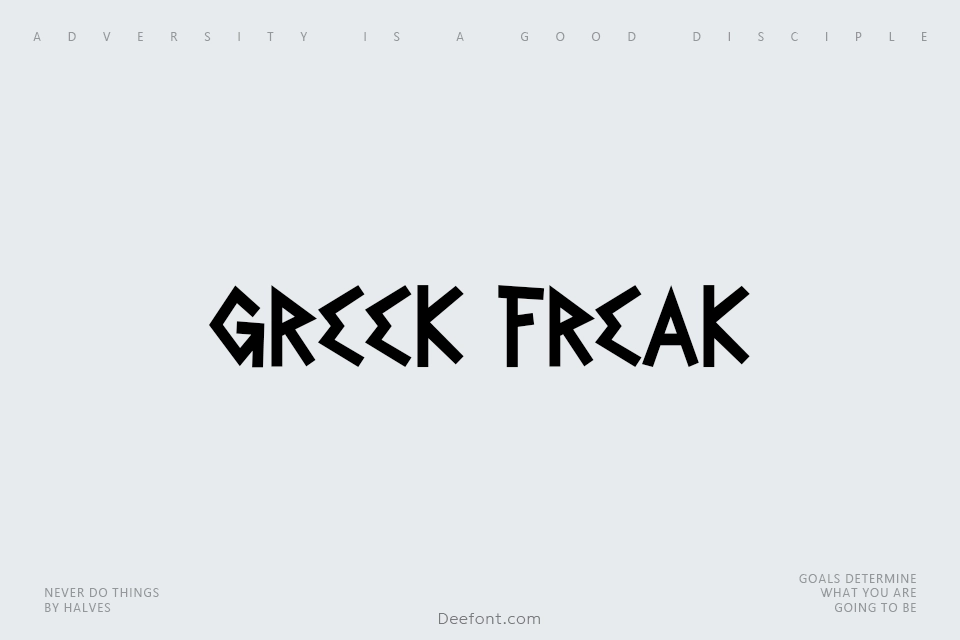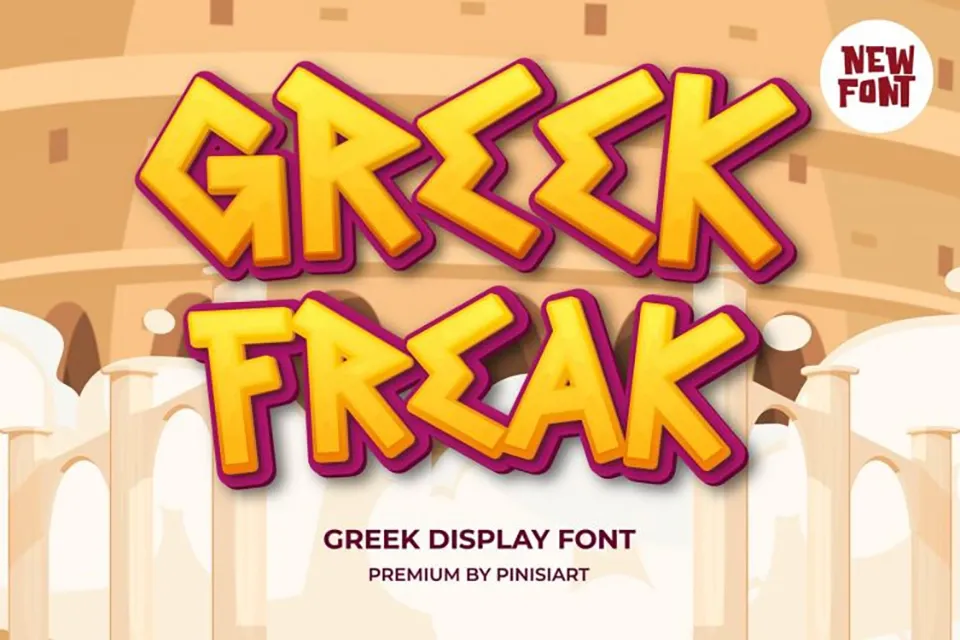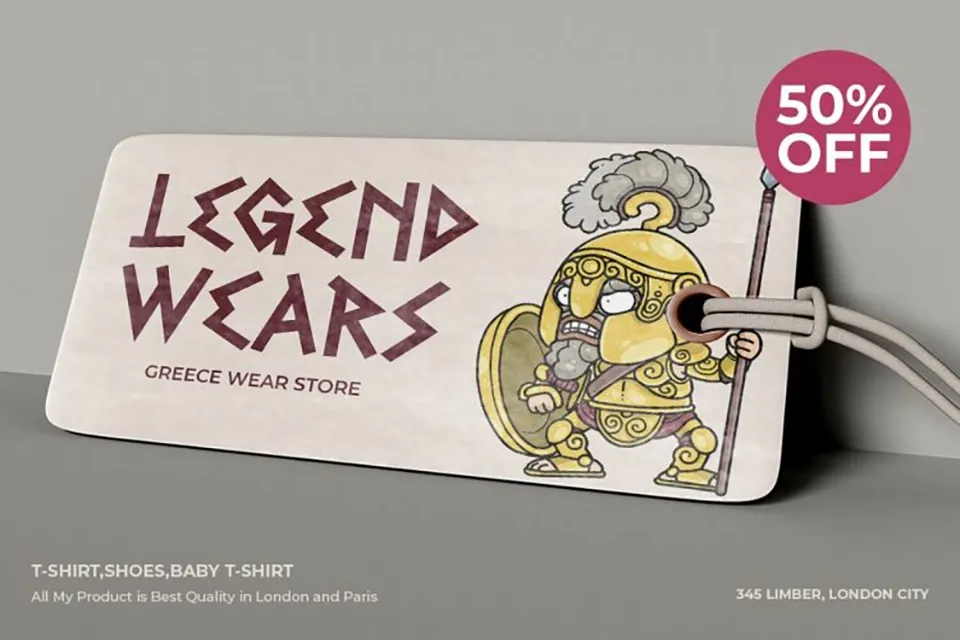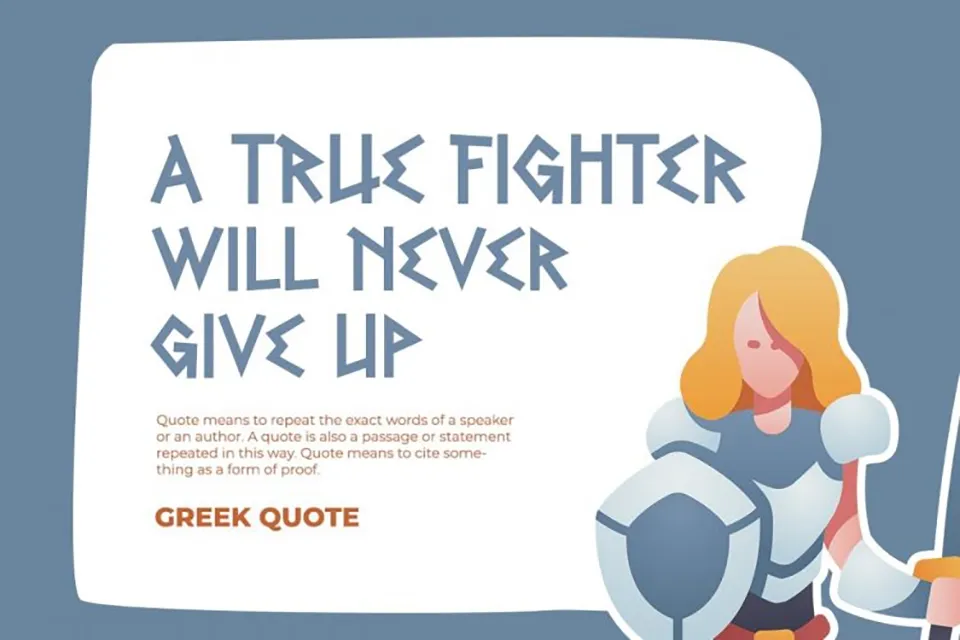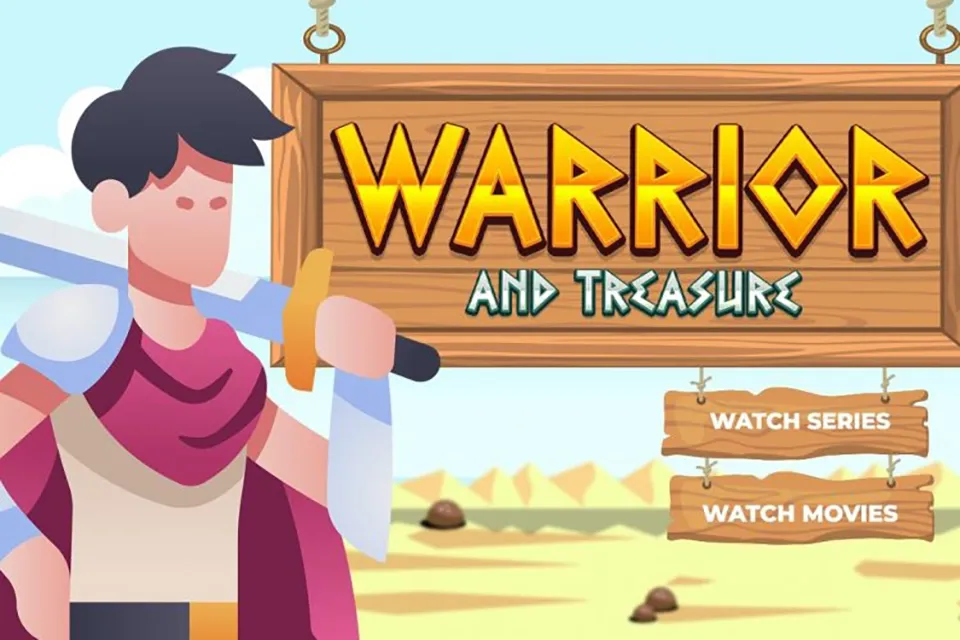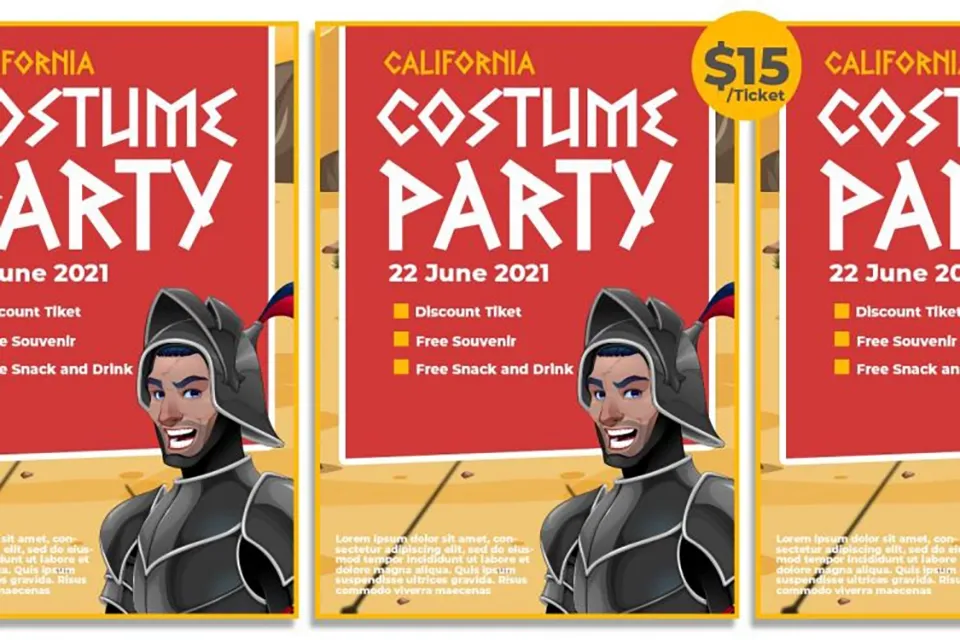
Greek Freak Font
Gaming Font Greek Freak brings a bold and eye-catching design that instantly transforms your creative projects. Inspired by ancient Greek aesthetics with a playful twist, this font combines modern flair with classic influences. Its chunky, geometric letterforms are ideal for gaming titles, branding, and projects that demand a vibrant and energetic touch. Whether you’re designing for adventure-themed games or playful promotions, this font ensures your message stands out with a unique and striking style.